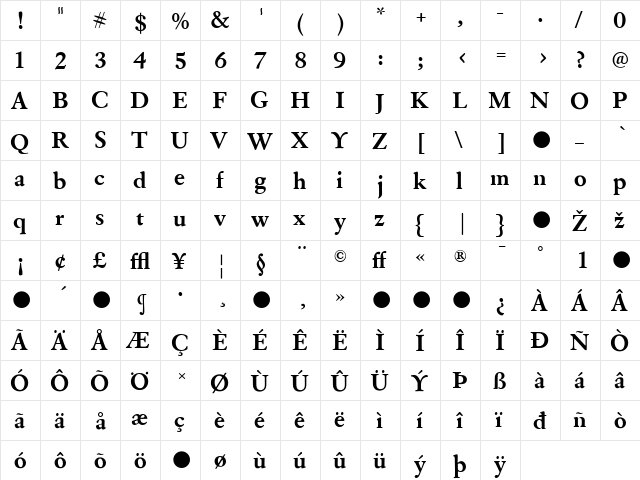
Eldorado Regular
| Foundry | The Font Bureau, Inc |
Design Context for Eldorado Typeface
Eldorado takes a measured approach to typography — its balanced proportions and neutral character make it a reliable workhorse for both digital and print work.